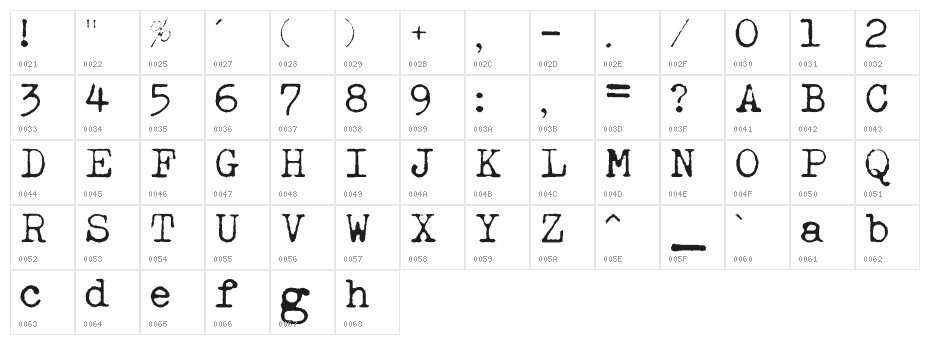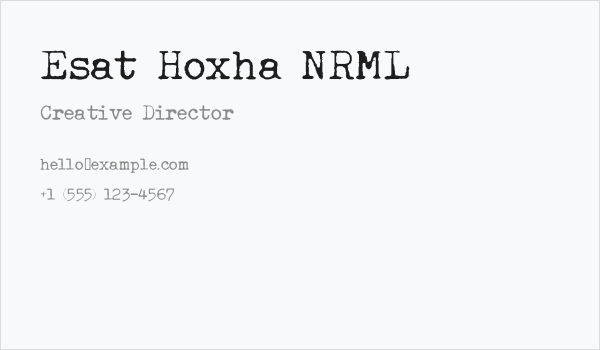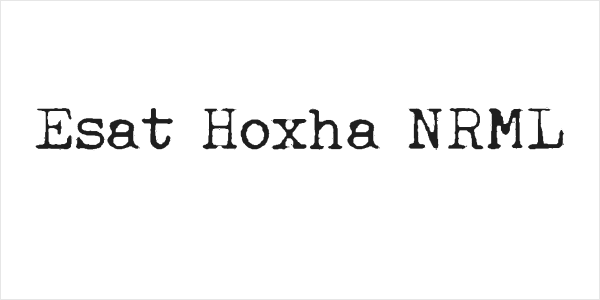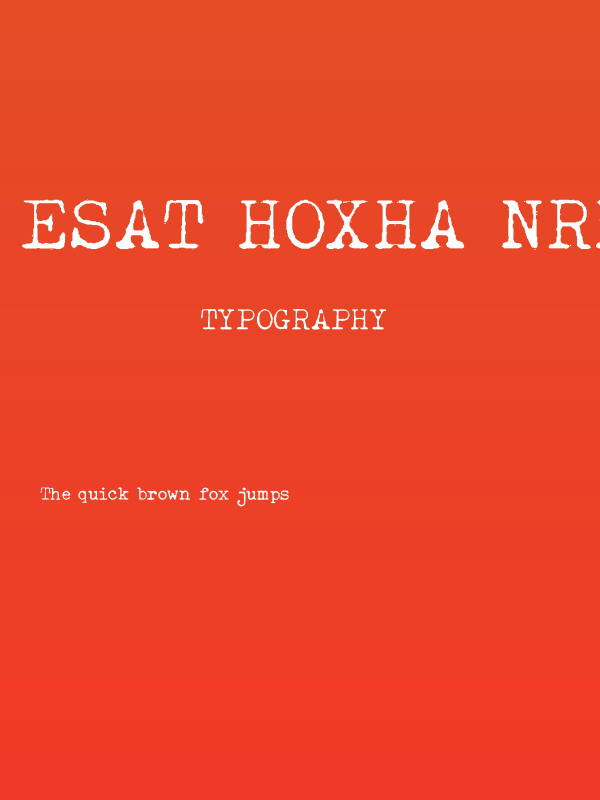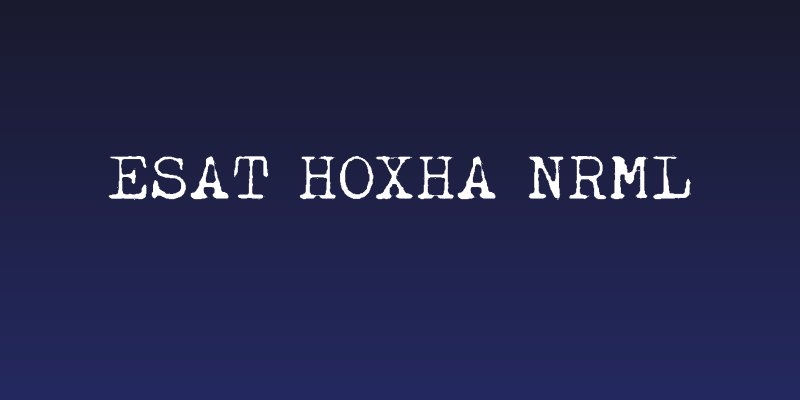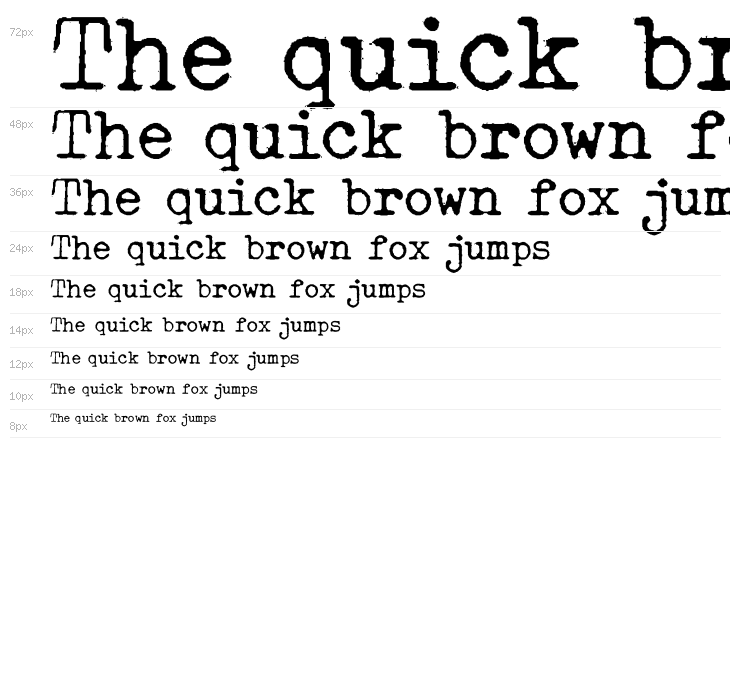
Esat Hoxha NRML Font
Esat Hoxha NRML Description
This typeface features a vintage, typewriter-inspired aesthetic with a distinct, worn texture that gives it a unique, aged appearance. The uppercase and lowercase letters maintain a consistent style, with slightly irregular edges that add to its charm. The numerals and special characters follow the same design principles, ensuring a cohesive look across all glyphs. The font's rough texture and uneven strokes create a sense of authenticity and nostalgia, making it ideal for projects that require a retro or handcrafted feel.
| Proposed Projects | Ideal for vintage-themed posters, retro branding, book covers, and creative projects that seek an authentic, nostalgic look. |